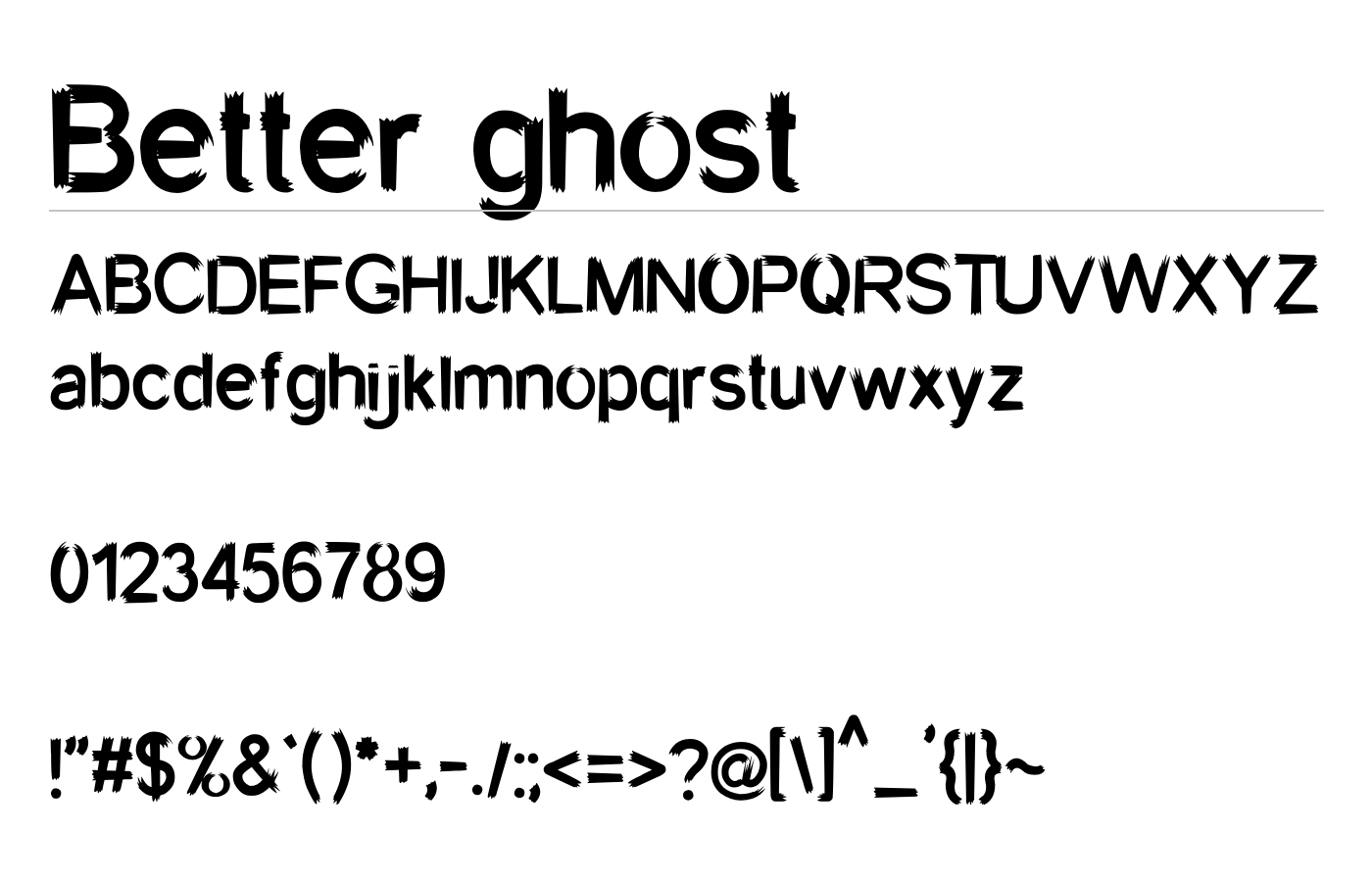
Better Ghost is a playful and edgy sans serif font with a jagged, distressed texture that gives it a spooky, Halloween vibe. Its upright, medium-weight letterforms have a slightly condensed feel with quirky, irregular details that add character and charm, making it perfect for fun, thematic designs like posters, party invitations, or branding that taps into a mysterious or supernatural mood. This font stands out with its unique style while remaining legible, ideal for headlines and decorative use where a bold, spirited impression is wanted.
Better ghost Font